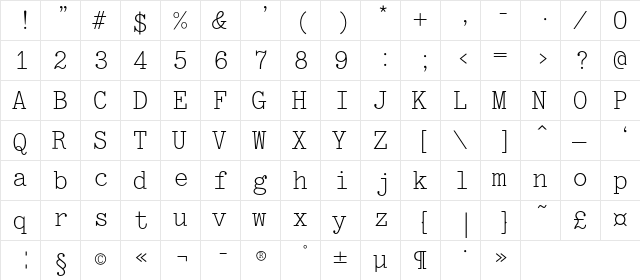
JatranC Regular
Design Context for JatranC Typeface
JatranC takes a measured approach to typography — its balanced proportions and neutral character make it a reliable workhorse for both digital and print work.
Pro Tip: Use JatranC in both headline and body roles to test its range before committing to a single application.